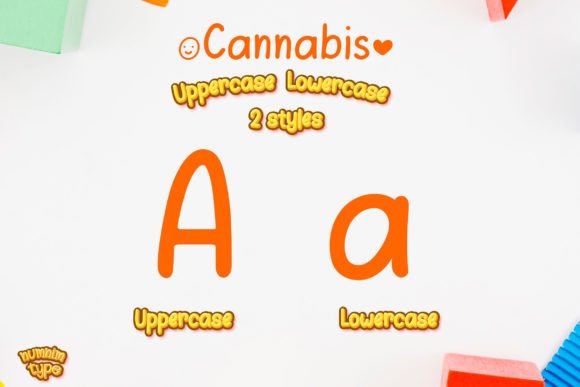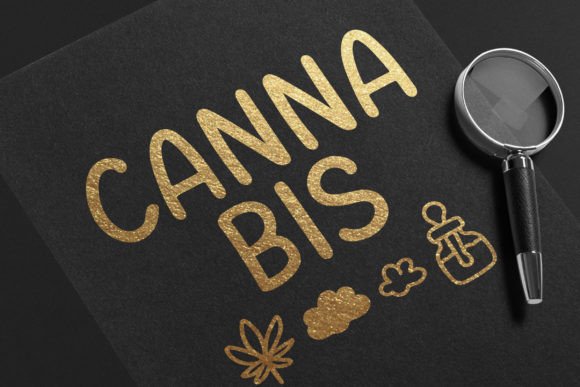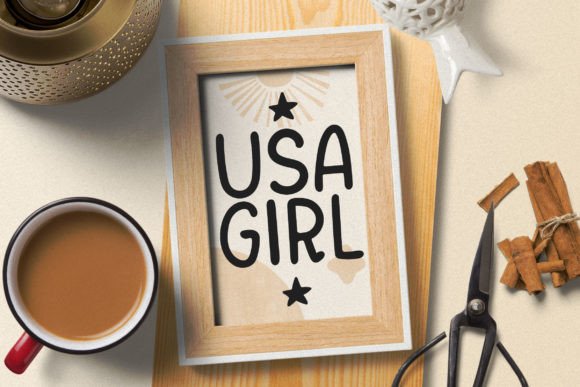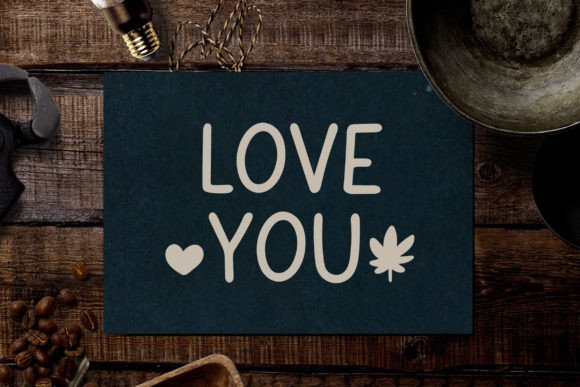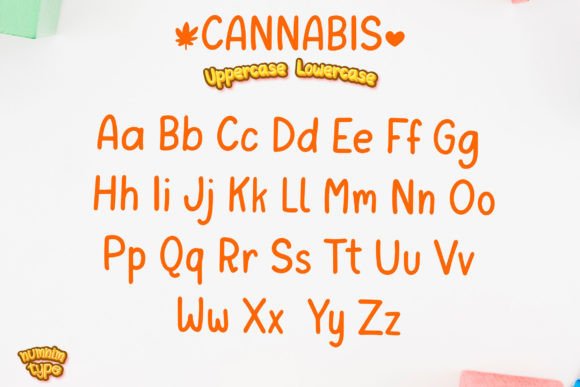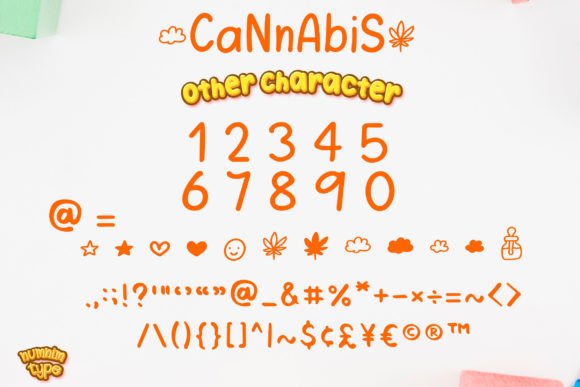
The Ultimate Guide to Cannabis Font: Adding a Touch of Whimsy to Your Designs
I’ll never forget the time I was working on a fun project for a client’s cannabis-themed merchandise. I had all the designs laid out, but something was missing – the perfect font. That’s when I stumbled upon Cannabis, a handwritten font that instantly added a vibrant, joyful feel to my designs. If you’re a designer, crafter, or creative hobbyist looking for a font that can bring a touch of whimsy to your work, you’re in the right place!
Here’s what I love about Cannabis font:
- ✨ Fun and playful characters that are perfect for stickers, mugs, t-shirts, ornaments, and more!
- ✅ A wide range of uses, from event cards to social media graphics.
And, like any font, it’s not without its quirks:
- ⚠️ Some characters may require manual kerning for optimal spacing.
- 🤔 Limited use on very formal or professional projects (unless you’re going for a playful twist!).
The Story Behind Cannabis Font
Cannabis font was designed with one goal in mind: to bring a touch of joy and whimsy to your designs. While the font’s origins are shrouded in mystery, it’s clear that the designer was inspired by the playful, carefree spirit of the cannabis culture. Whether you’re a designer or a crafter, Cannabis font is the perfect addition to your font library.
| What is Cannabis font best used for? | Cannabis font is perfect for stickers, mugs, t-shirts, ornaments, event cards, and more! |